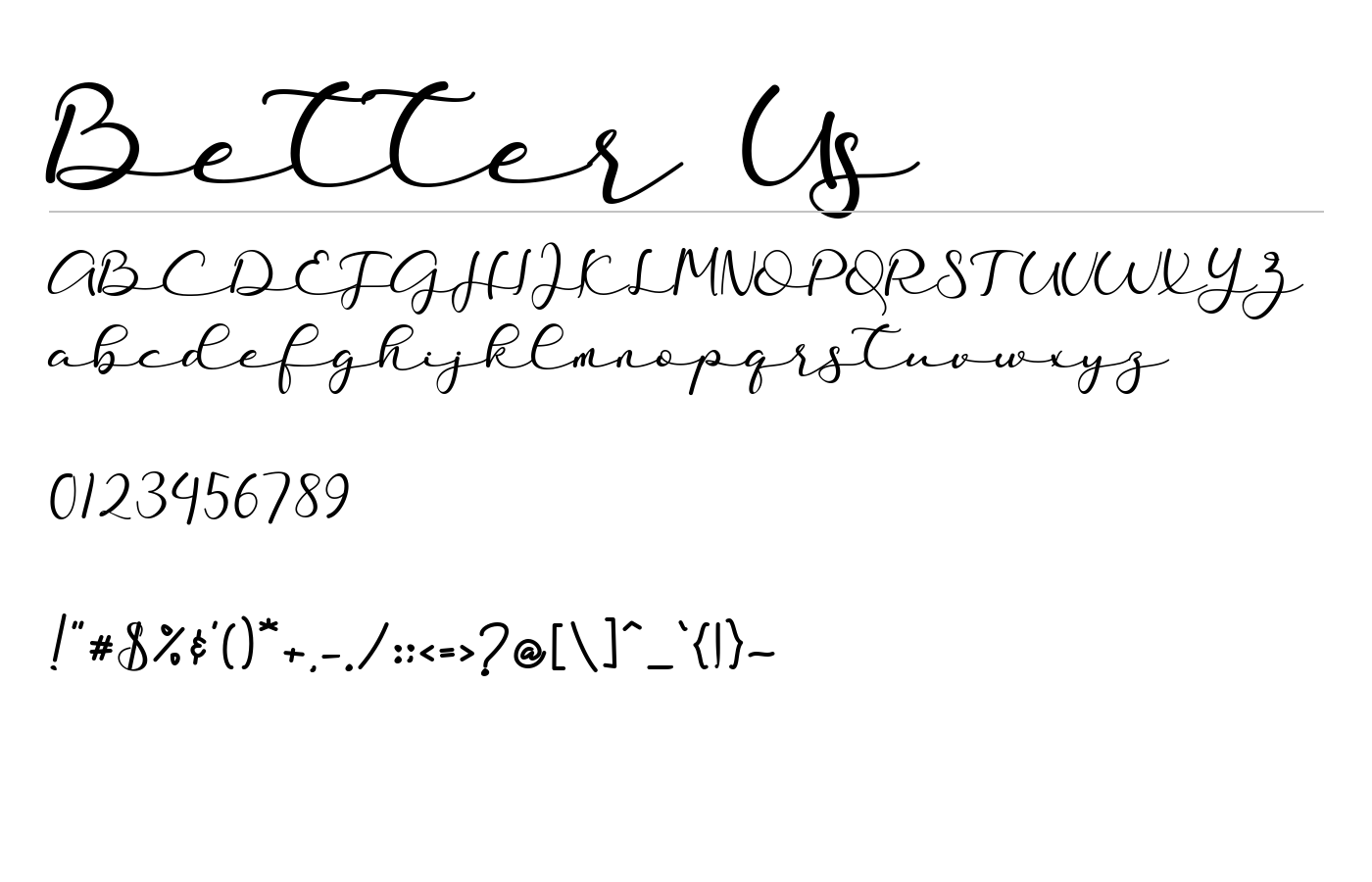
Better Us is a graceful script font with a smooth, flowing style that feels personal and elegant. Its slender, slightly irregular letterforms convey warmth and creativity, making it ideal for branding, invitations, and lifestyle projects that seek a charming, handwritten touch. This font shines in designs where a friendly yet refined appearance is desired, bringing a sense of individuality and sophistication.
Better Us Font
About Better Us Font
| Font family | Better Us Font |
| Designer | Tiny Hand Letter 2021 |